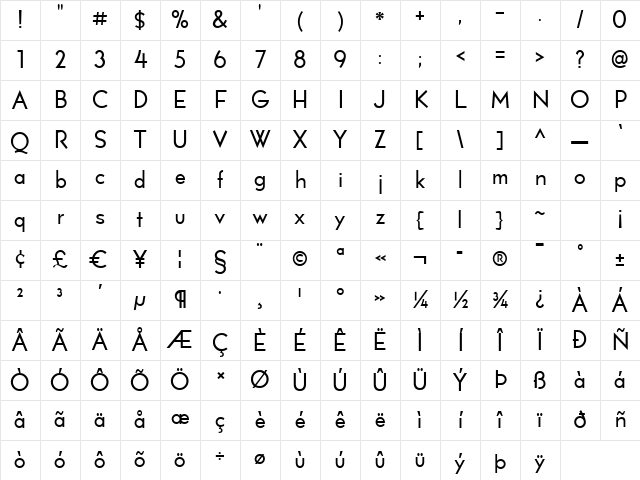
Lionel Text Steam Regular Free Font
Lionel Text Steam Regular
Design Context for Lionel Text Steam
Lionel Text Steam is a composed and adaptable typeface that performs quietly and consistently across a wide range of design contexts.